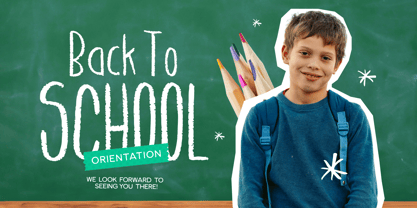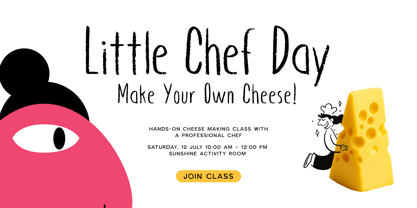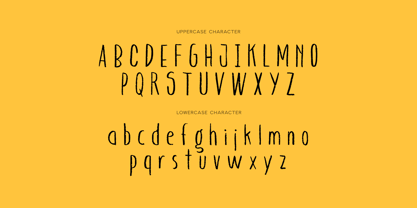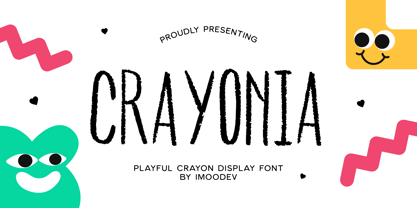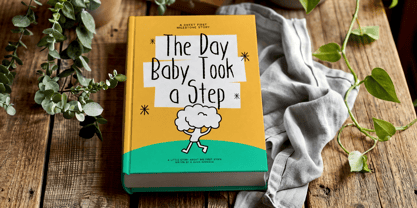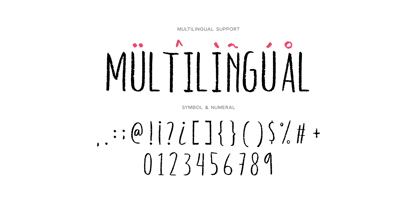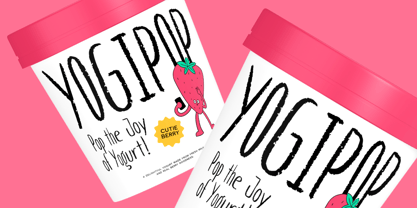
Crayonia
Die Schriftfamilie Crayonia wurde von Aulia Savira Putri entworfen und von Imoodev veröffentlicht. Crayonia enthält 1 Stile. Mehr über diese Familie
Crayonia is a charmingly hand drawn display font designed to bring the nostalgic, textured feel of wax crayons to your digital canvas. Featuring tall, condensed letterforms with authentic waxy edges and subtle pressure variations, this font perfectly captures the innocent and energetic spirit of childhood creativity. Whether you are designing for the classroom, creating a whimsical children's book, or branding a playful craft business. It is highly versatile, including uppercase and lowercase characters, numerals, punctuation, and full multilingual support, ensuring your message is clear and characterful in any language. Perfect for: Education: "Back to School" posters, teacher resources, and classroom decor. Publishing: Children’s book covers and interior illustrations. Packaging: Whimsical branding for snacks, toys, or organic products. Events: Birthday invitations and community workshops. Social Media: Playful quotes and engaging storytelling graphics.
Crayonia